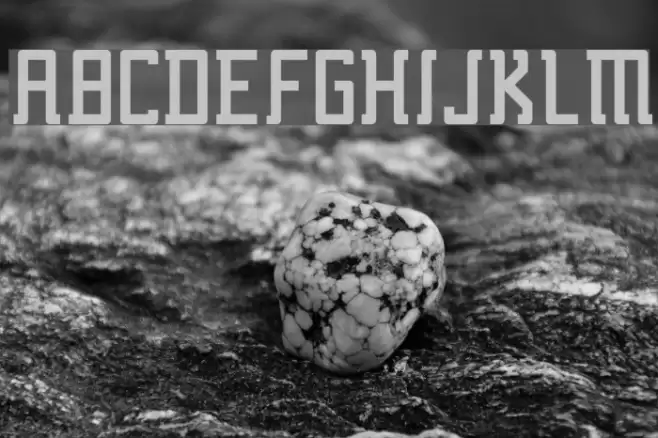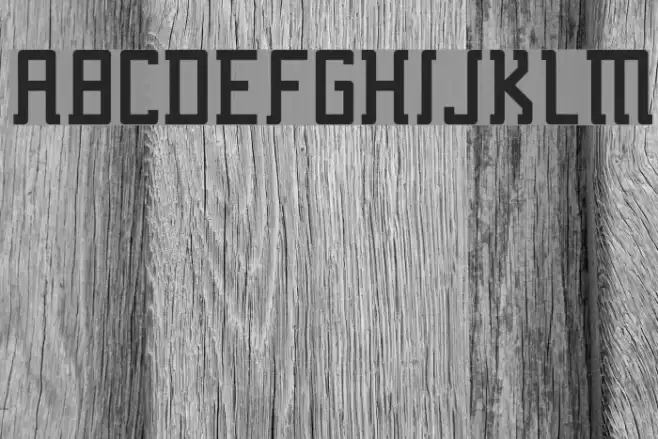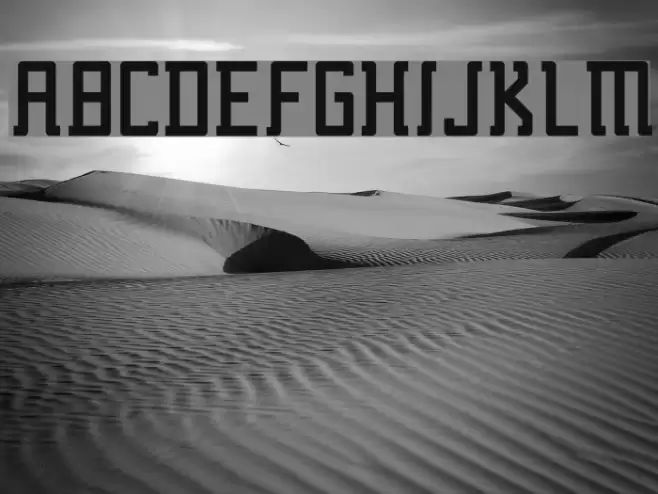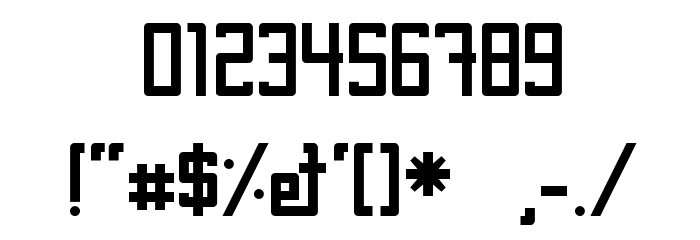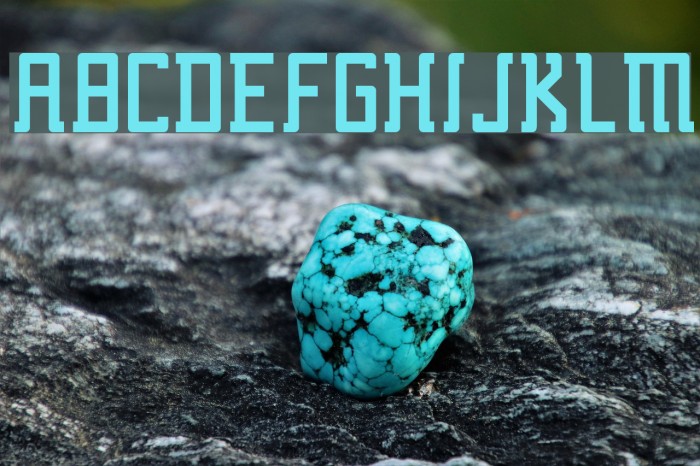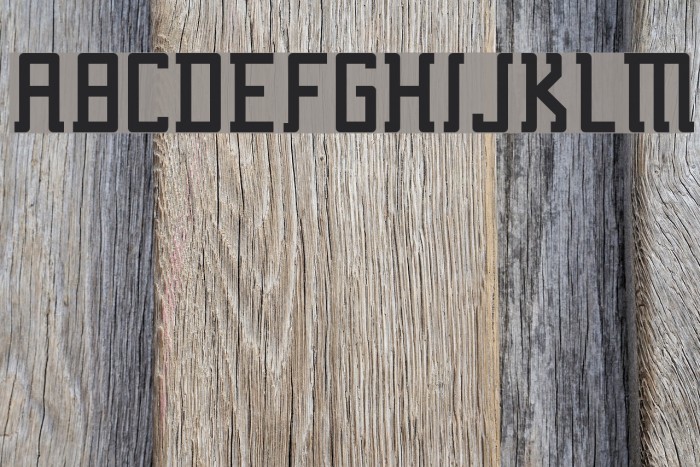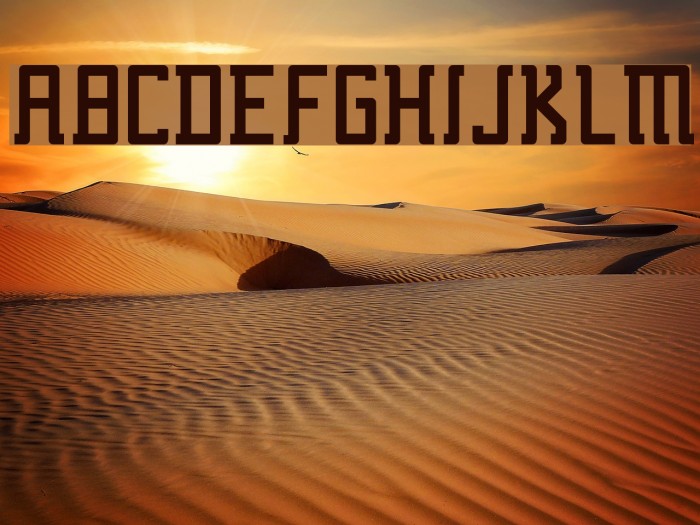
Fcraft Sidarta Bold Font
Fcraft Sidarta Bold Description
This font features a bold and geometric design with a modern twist. The characters are constructed with straight lines and sharp angles, giving it a futuristic and digital appearance. The uppercase letters are uniform in height, while the lowercase letters maintain a consistent style with slightly rounded edges. Numbers and special characters follow the same geometric pattern, ensuring a cohesive look across all elements. The font's bold weight and distinct style make it highly legible and impactful, suitable for various design applications.
A bold, geometric font with a modern and digital aesthetic from Uncategorized fonts.